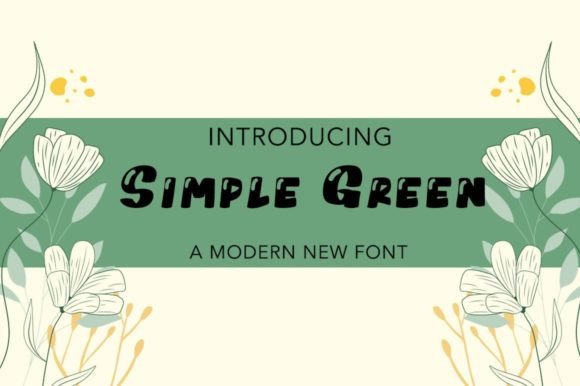
Introducing the Simple Green Font - your passport to a world of creativity, joy, and unique self-expression. This bubbly display font is the brainchild of rangkaiaksara, a font maestro known for crafting fonts that dance and sing on the page.
Dive into a world of endless possibilities with Simple Green. Its playful curves and cheerful vibe add a dash of whimsy to any project, making it the perfect font for party invitations, swimming gatherings, and any design craving a touch of youthful exuberance.
With Simple Green, you can turn your creative visions into tangible realities. Whether you're a designer, a blogger, or simply a lover of beautiful fonts, this font is your ticket to crafting designs that pop, engage, and inspire.
Picture this: your words dancing across the page, infused with the playful spirit of Simple Green. Your invitations become more than just pieces of paper; they transform into gateways to unforgettable gatherings, filled with laughter and cherished memories. Your blog posts come alive, captivating readers with their playful charm and thought-provoking content.
But Simple Green's magic extends far beyond invitations and blogs. Its versatility knows no bounds. Unleash your imagination and explore the myriad possibilities it presents. Design eye-catching social media posts that demand attention, create stunning logos that exude personality, or craft unique branding elements that set you apart from the crowd.
So, dear creative soul, embrace the whimsical world of Simple Green. Let its bubbly charm dance through your designs, spreading joy and inspiration wherever it goes. Make your mark on the world, one design at a time, with Simple Green as your trusty companion.